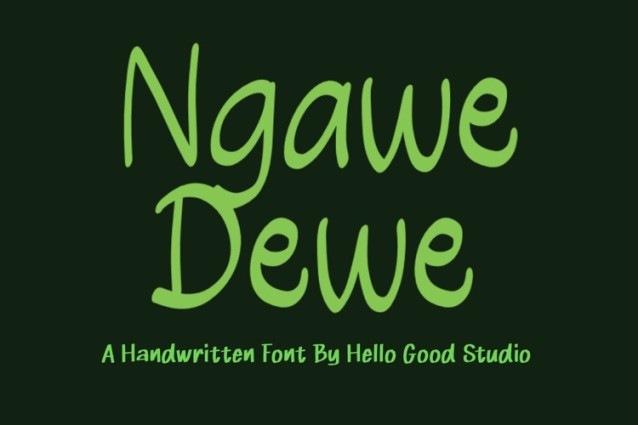
Ngawe Dewe Font
Ngawe Dewe Font is a simple and friendly handwritten font. Its natural and unique style makes it incredibly fitting to a large pool of designs. The only limit is your imagination!